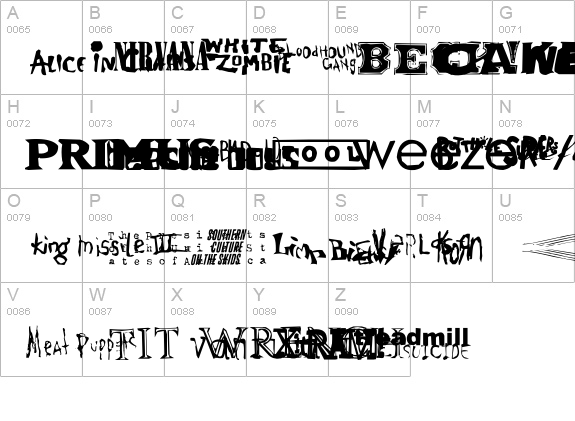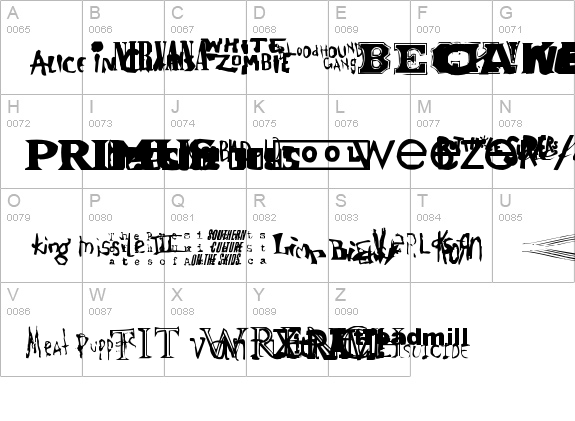
Bandnames Font Details
Bandnames font is a trendy and stylish typeface that is perfect for creating eye-catching designs. This versatile font is ideal for music-related projects, branding, posters, and more. With its unique combination of bold and edgy letterforms, Bandnames font adds a touch of creativity to any design. What sets Bandnames font apart is that it is available for free download at FontsMarket.com. This means you can easily access this font and use it in your projects without any cost. Whether you are a designer, musician, or creative individual looking to make a statement, Bandnames font is the perfect choice for adding a touch of personality to your work. Download Bandnames font today and unleash your creativity!